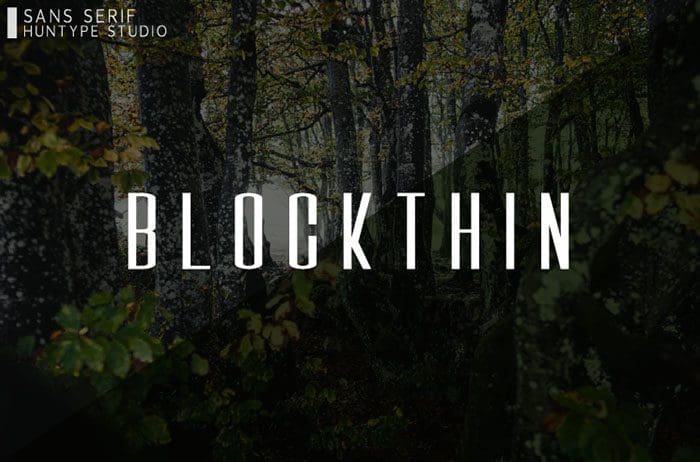
Blockthin Sans Serif Font
Blockthin is a distinct, elegant sans serif font that blends traditional influences into a contemporary aesthetic. It will look particularly adept when used in logos, branding, packaging design, and much more. This masterfully designed font is a true must-have. Thanks to Mas Anis for sharing this awesome font! Take a look on this portfolio for more of his stunning fonts.